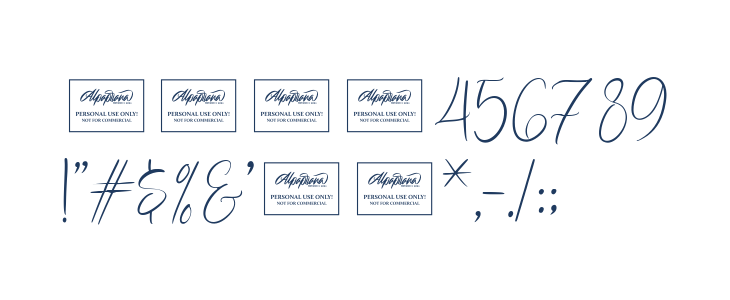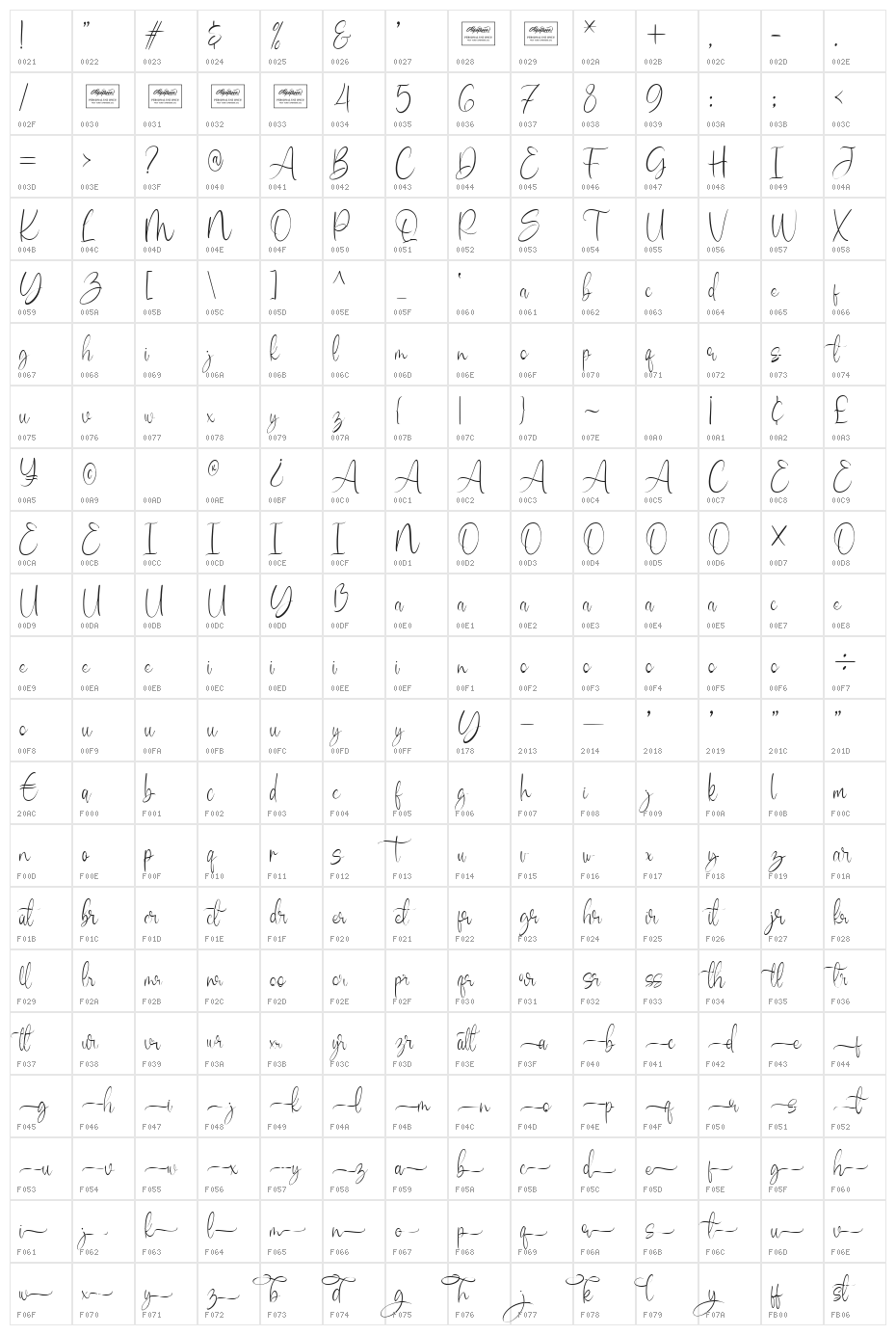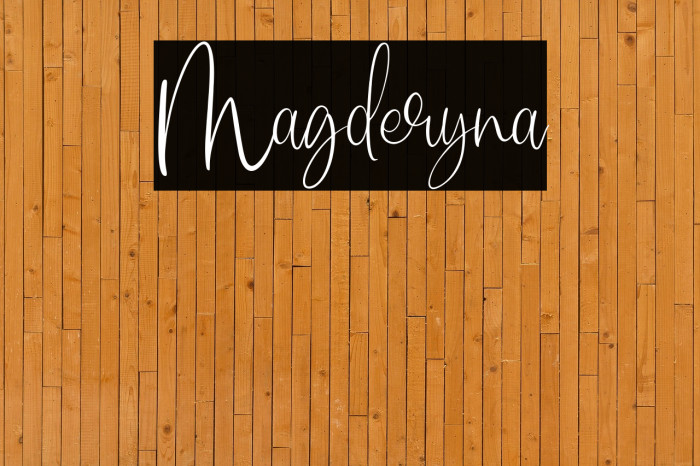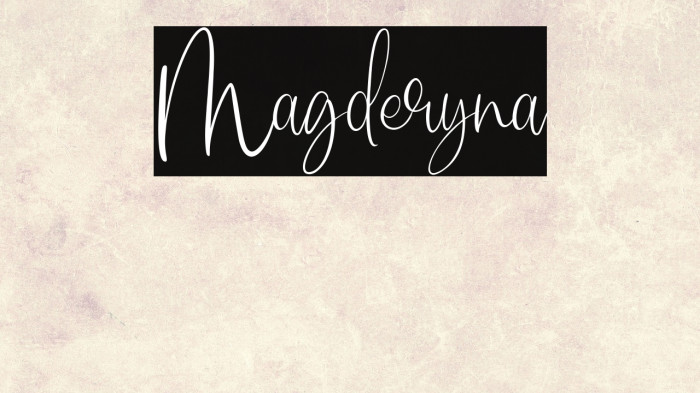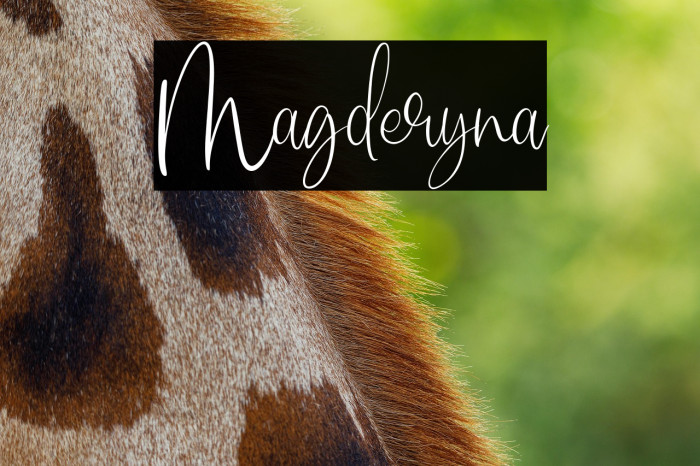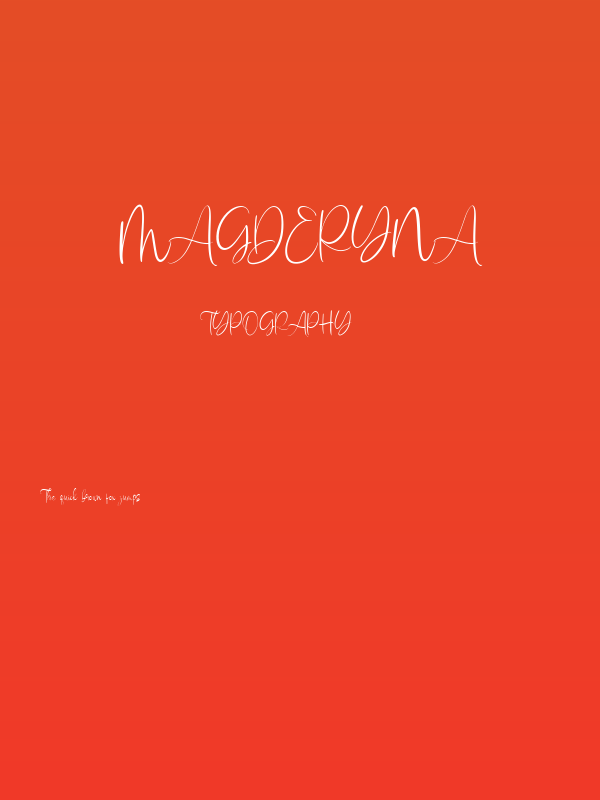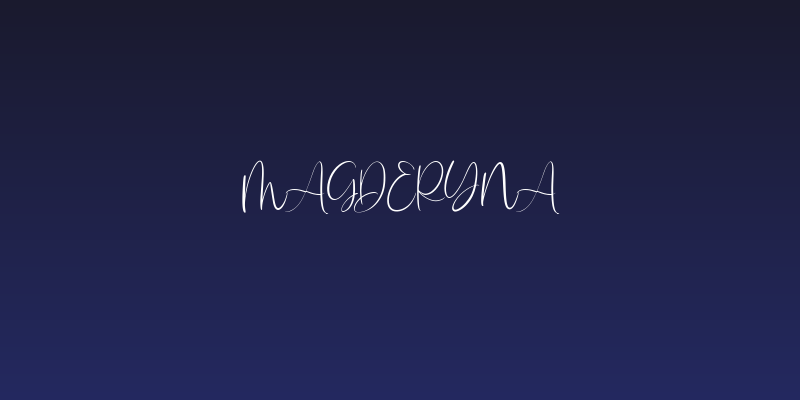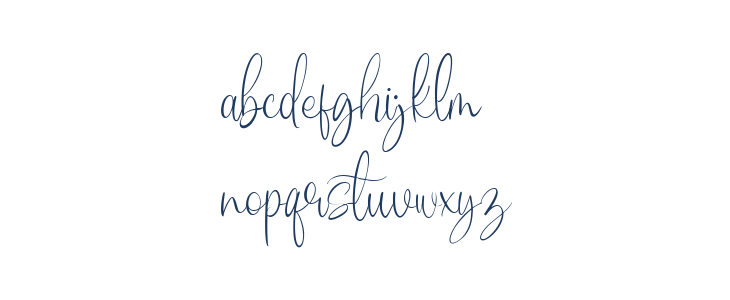
Magderyna Font
Magderyna Description
This elegant script font features a flowing, handwritten style with a modern twist. The uppercase letters are tall and graceful, with sweeping curves and loops that give them a sense of movement and fluidity. The lowercase letters are equally stylish, maintaining a consistent slant and smooth connection between characters. The numbers and special characters are designed to match the overall aesthetic, with a delicate and refined appearance. This font exudes a sense of sophistication and charm, making it ideal for projects that require a personal touch. The character spacing is balanced, allowing for easy readability while maintaining its artistic flair.
| Use Case | Logos, Invitations, Greeting Cards |
| Proposed Projects | Ideal for wedding invitations, greeting cards, branding, and logos. |